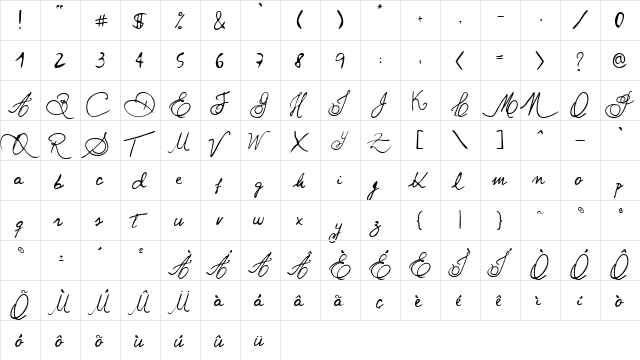
Paulinho Pedra Azul Normal
Design Context for Paulinho Pedra Azul Typeface
Paulinho Pedra Azul is a composed and adaptable typeface that performs quietly and consistently across a wide range of design contexts.